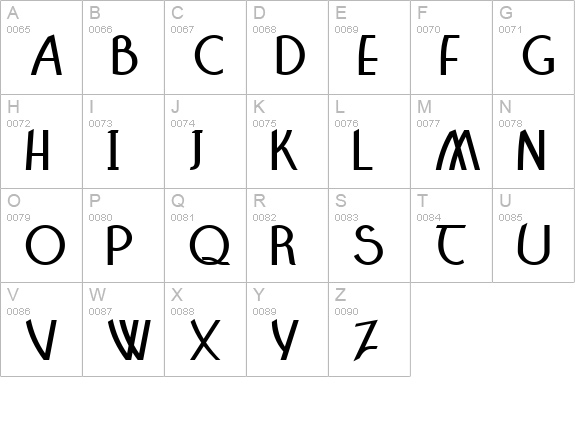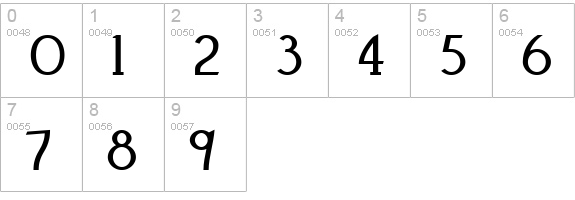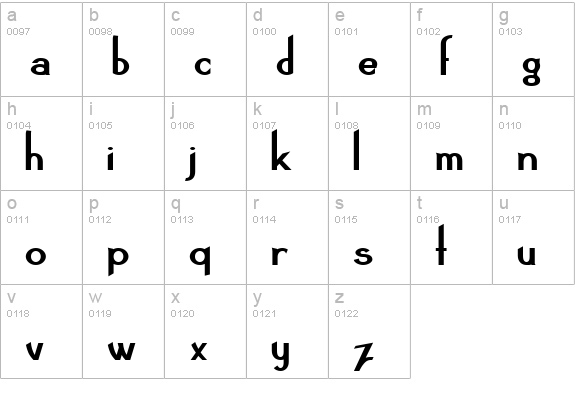
Claritty_Bold Font Details
Claritty_Bold font is a modern and stylish typeface that exudes confidence and sophistication. Its bold and clear letterforms make a powerful statement, perfect for headlines, titles, and branding projects. The strong lines and clean design of Claritty_Bold font ensure maximum impact and readability in any application. What sets Claritty_Bold font apart is not only its striking appearance but also its accessibility. This versatile font is available for free download at FontsMarket.com, making it the perfect choice for designers, creatives, and anyone looking to add a touch of bold elegance to their projects. Whether you're working on a poster, logo, or website, Claritty_Bold font is sure to make a bold statement and leave a lasting impression.